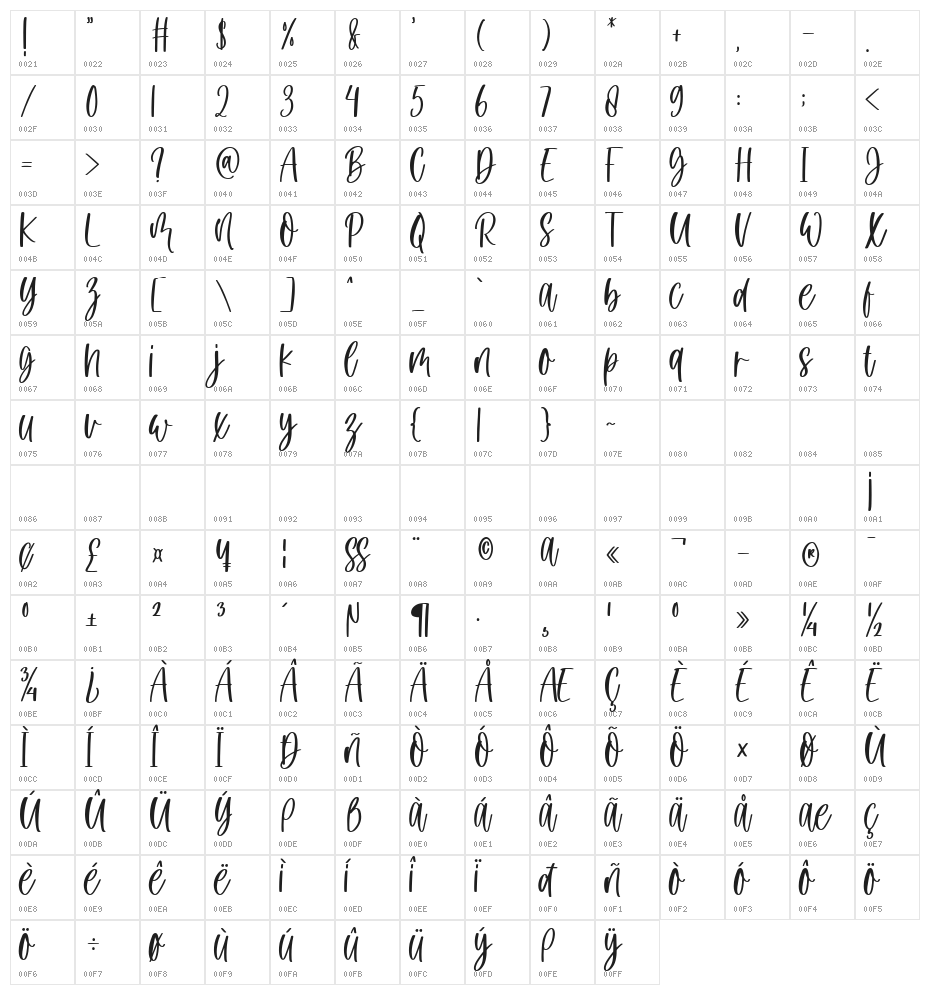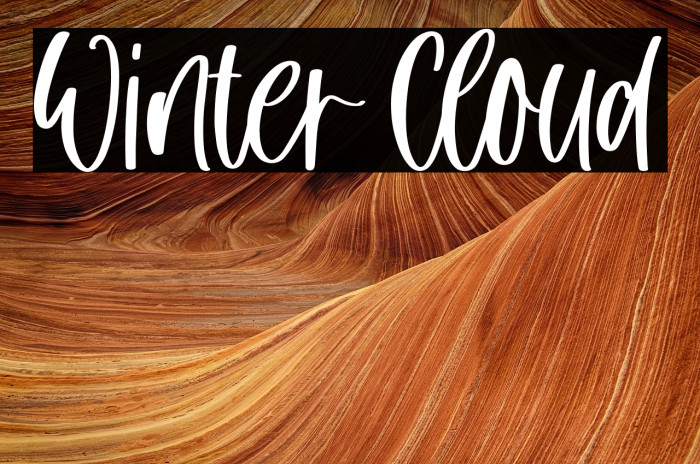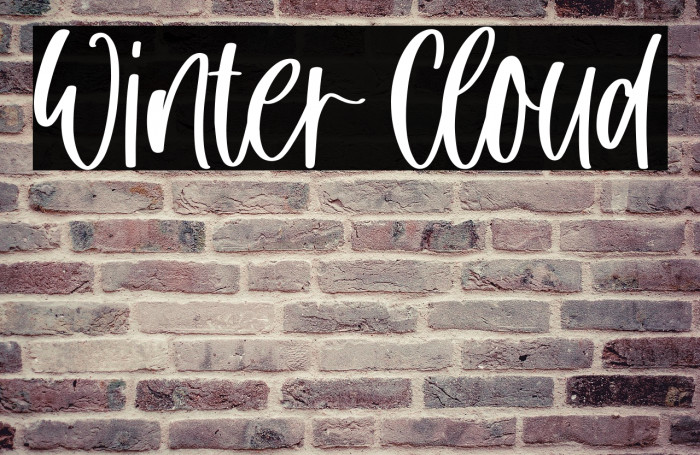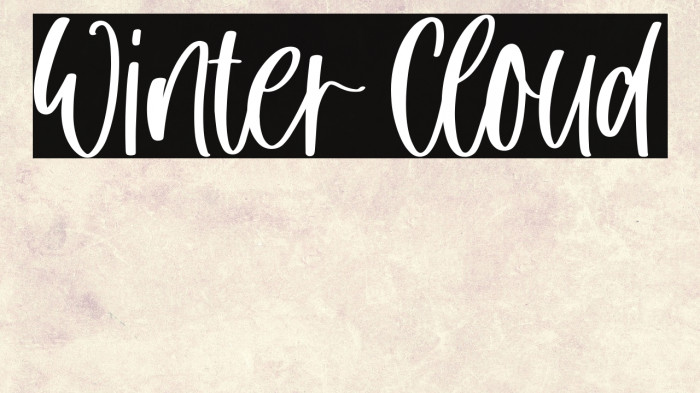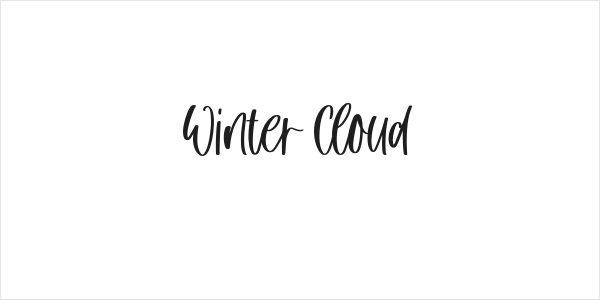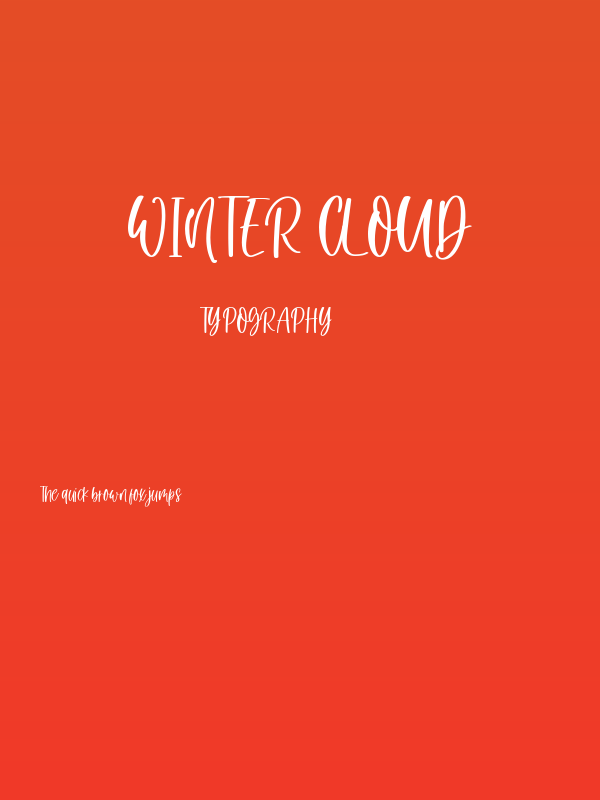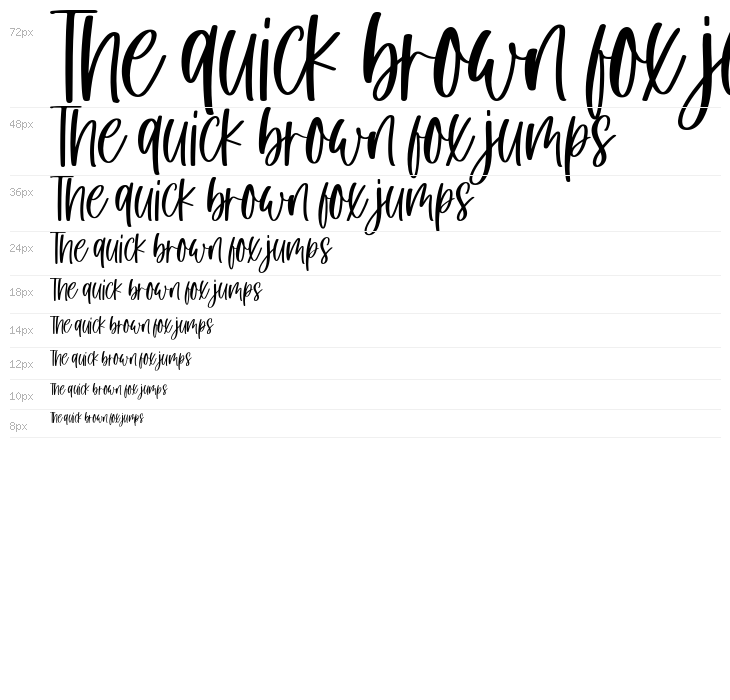
Winter Cloud Font
Winter Cloud Description
This font features a lively and expressive handwritten style, characterized by its fluid and dynamic letterforms. The uppercase and lowercase letters exhibit a playful yet elegant flow, with varying stroke thickness that adds a sense of movement and personality. The numbers and special characters maintain this energetic style, ensuring consistency across all glyphs. The font's overall appearance is both modern and artistic, making it suitable for creative projects that require a personal touch.
| Proposed Projects | Ideal for greeting cards, invitations, branding, social media graphics, and artistic projects that seek a personal and creative flair. |